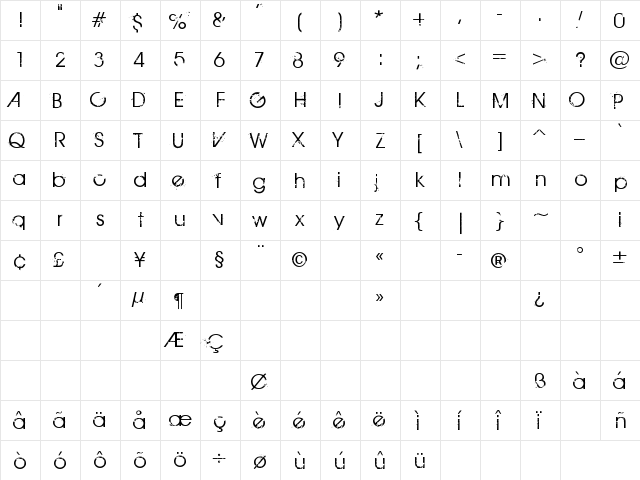
BIRTH OF A HERO Regular
Design Context for BIRTH OF A HERO Typeface
BIRTH OF A HERO is a composed and adaptable typeface that performs quietly and consistently across a wide range of design contexts.